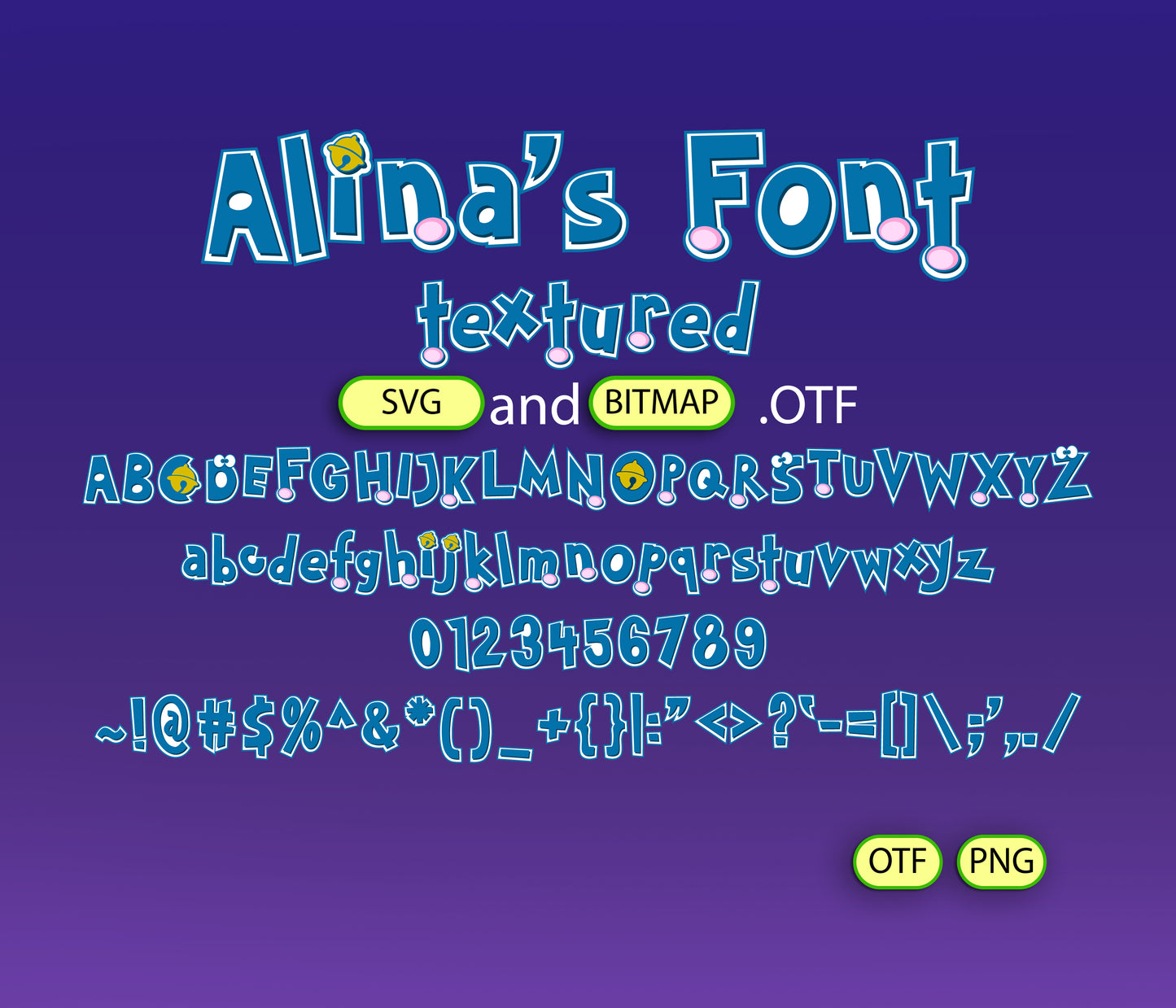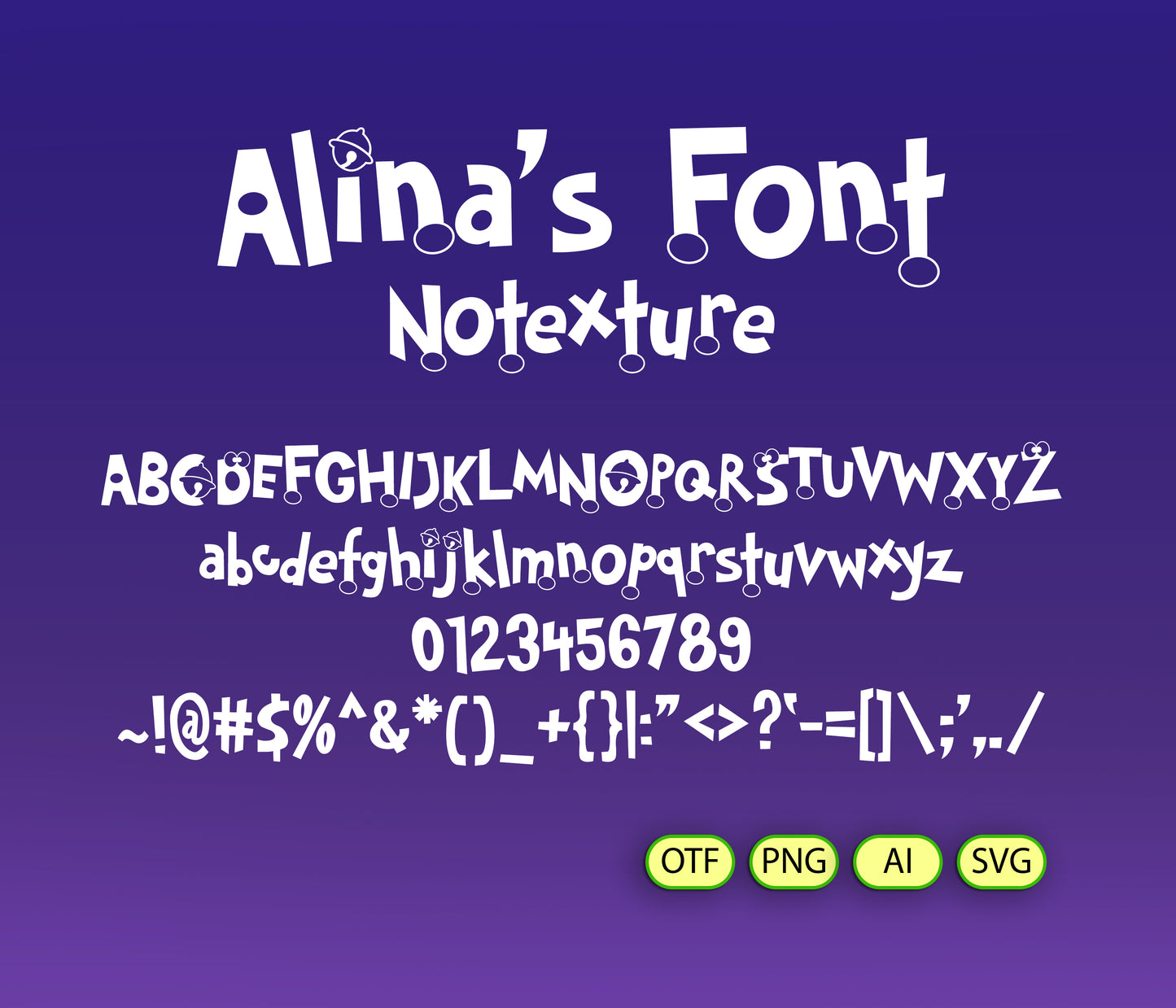
Robotic Cat Companion Font Textured
Step into the whimsical world of a beloved robotic feline friend with our specially designed font. This typeface captures the essence of the iconic Japanese manga and anime series, known for its time-traveling adventures and gadget-filled fun. Perfect for fans, event planners, and designers, this font brings the playful, futuristic spirit of the famous blue robotic cat to your creative projects.
What font is the Robotic Cat Companion font?
Envision a typeface that embodies the character's signature look - round, friendly, and with a touch of futuristic charm. Our font features playful, slightly rounded letterforms that mirror the series' aesthetic, complete with a hint of technological flair. It includes a comprehensive character set with alphabets, numbers, and special symbols, providing a versatile solution for various design needs.
What You Can Do With Robotic Cat Companion Textured Font
This versatile font is ideal for a range of creative applications:
- Theme Party Invitations: Create eye-catching invites for anime-inspired celebrations
- Fan Merchandise: Design appealing t-shirts, accessories, and collectibles for enthusiasts
- Digital Content: Enhance websites, blogs, and social media with charming headers and graphics
- Toy Packaging: Add authenticity to packaging designs for related toys or gadgets
- Event Decorations: Develop banners, posters, and signage for anime conventions or themed events
- Children's Products: Design book covers, stationery, or educational materials with a touch of robotic fun
- Manga and Comics: Use for titles, speech bubbles, or sound effects in fan-made comics
- Animation Projects: Create title cards or credits for fan animations or tributes
- Textured and Non-Textured Variants: Available in both a playful, slightly metallic style reminiscent of the character's look, and a clean version for versatile use
- Extensive Character Set: Offers a wide range of characters for complete design flexibility
The Robotic Cat Companion font is more than just a typeface; it's a celebration of the iconic series that has captured the hearts of generations with its blend of humor, friendship, and futuristic gadgetry.